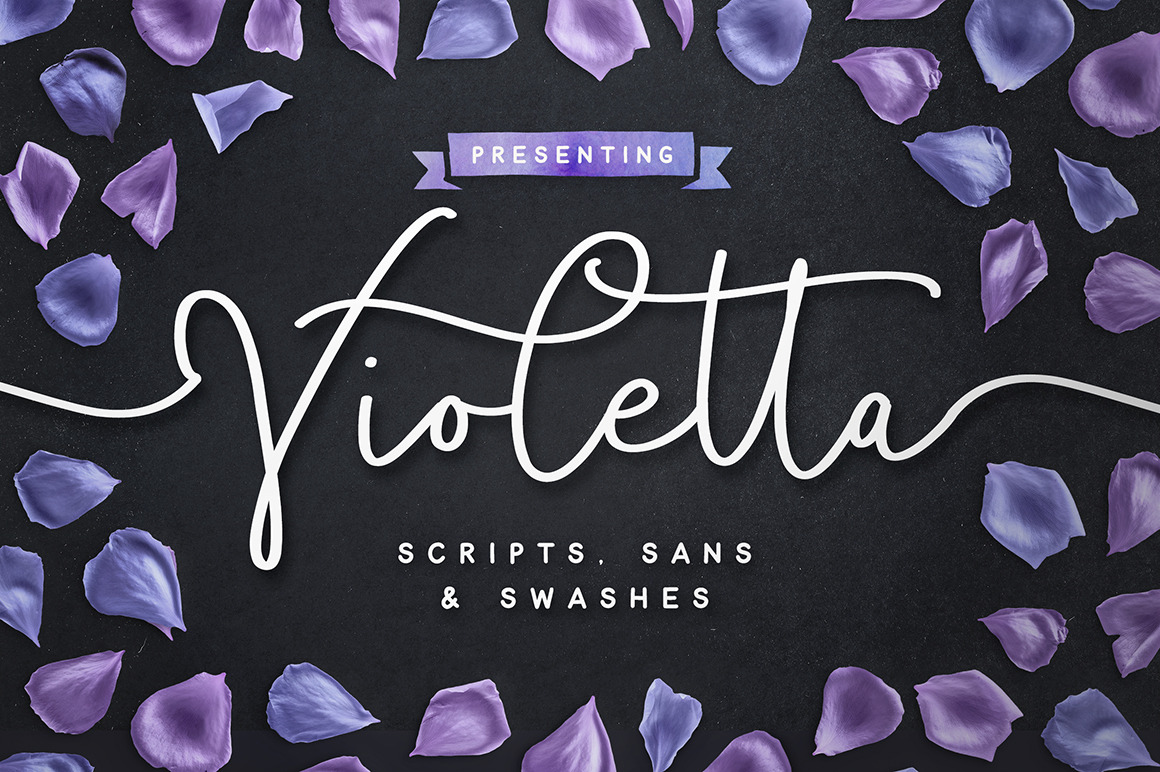
Violetta Font Pack
Introducing Violetta; a sophisticated set of fonts packed full of extra features. With an enormous amount of layout options, you can put together a typographic work of art with a custom-made quality in a flash!
Hand drawn with extra attention to exaggerated loops and bouncy curves, Violetta makes for a charming addition to any logo, invitation, product packaging, hand-written quote, greetings card, or anything requiring a sprinkle of elegance.
1. Violetta Script • A cursive font containing upper & lowercase characters. Several stylistic alternates and ligatures are also available, simply by turning on 'Stylistic Alternates' and 'Discretionary Ligatures' in any software with OpenType capabilities, or via a Glyphs panel.
2. Violetta Script Alt • This is a second version of Violetta Script, with a completely new set of lowercase characters. If you wanted to avoid letters looking the same each time to recreate a custom-made style, or try a different word shape, simply switch to this font for an additional layout option.
3. Violetta Swash • These 24 swashes are the perfect finishing touch for the script font. Simply type any uppercase letter before your 'Violetta Script' word to add a beginning-swash, and any lowercase letter after your word to create an end-swash.
(Note: Some swashes will connect better to some letters than others, and may need a bit of positional-tweaking, especially if connecting to capital letters).
4. Violetta Script Extended • Need even more elegance? OK! Try this extended version of Violetta Script, the lowercase characters have elongated connective tails for a touch of extra class.
5. Violetta Sans • Can't find anything to pair the Script font with? No worries there, I've also included a bold, hand-drawn simple sans font - the perfect smallprint companion for the cursive script, designed to compliment it perfectly without clashing for attention.